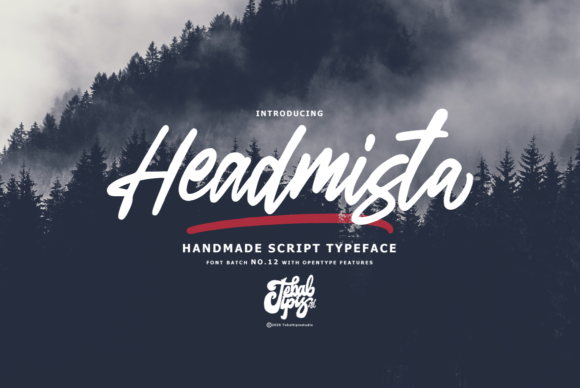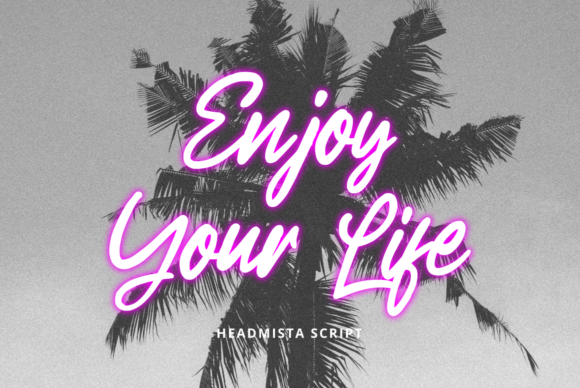
About Headmista Font
Headmista is a script font that is both professional and full of personality. You can use it as a logo, badge, packaging, headline, poster, etc. This font is PUA encoded which means you can access the available glyphs and swashes with ease!